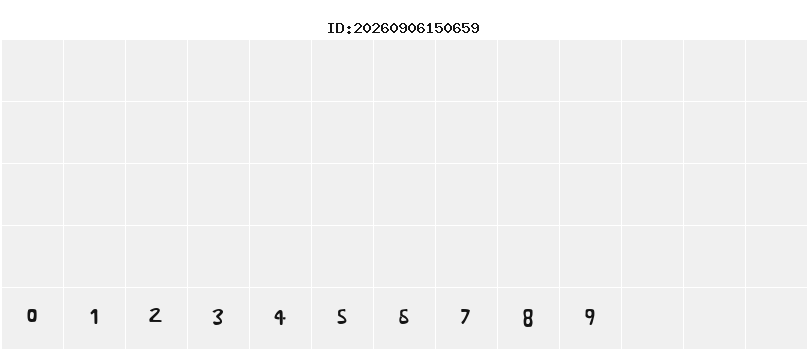
Tadaaki Hebrew Preview
• Font Name: Tadaaki Hebrew
About Tadaaki Hebrew.ttf
Tadaaki Hebrew.ttf is a modern, elegant sans-serif font designed for ultimate readability and visual harmony. Perfect for branding, headlines, web design, and print materials.